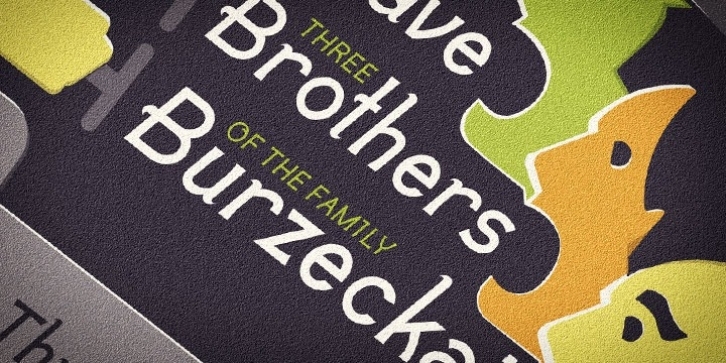
Pinion Display is a modern decorative typeface that is constructed using simplified mechanical ornaments blended with irregular curves and flared serifs. The result is a font with the consistent rhythm of a sans-serif and a touch of historical charm.
The goal of Pinion Display was to create a modern decorative face that is constructed as if using industrial techniques. Characters were fabricated, rather than drawn, by joining together a variety of components. Proportions and curved forms were then fine-tuned to achieve balance and approachability when characters are combined into words. Finally, capitals without ornaments and small caps were added to make the typeface more versatile.